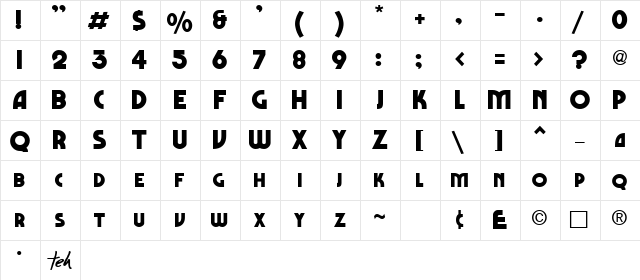
Marbold Normal
Design Context for Marbold Typeface
Marbold is a composed and adaptable typeface that performs quietly and consistently across a wide range of design contexts. The heavy weight commands attention and anchors typographic hierarchies.